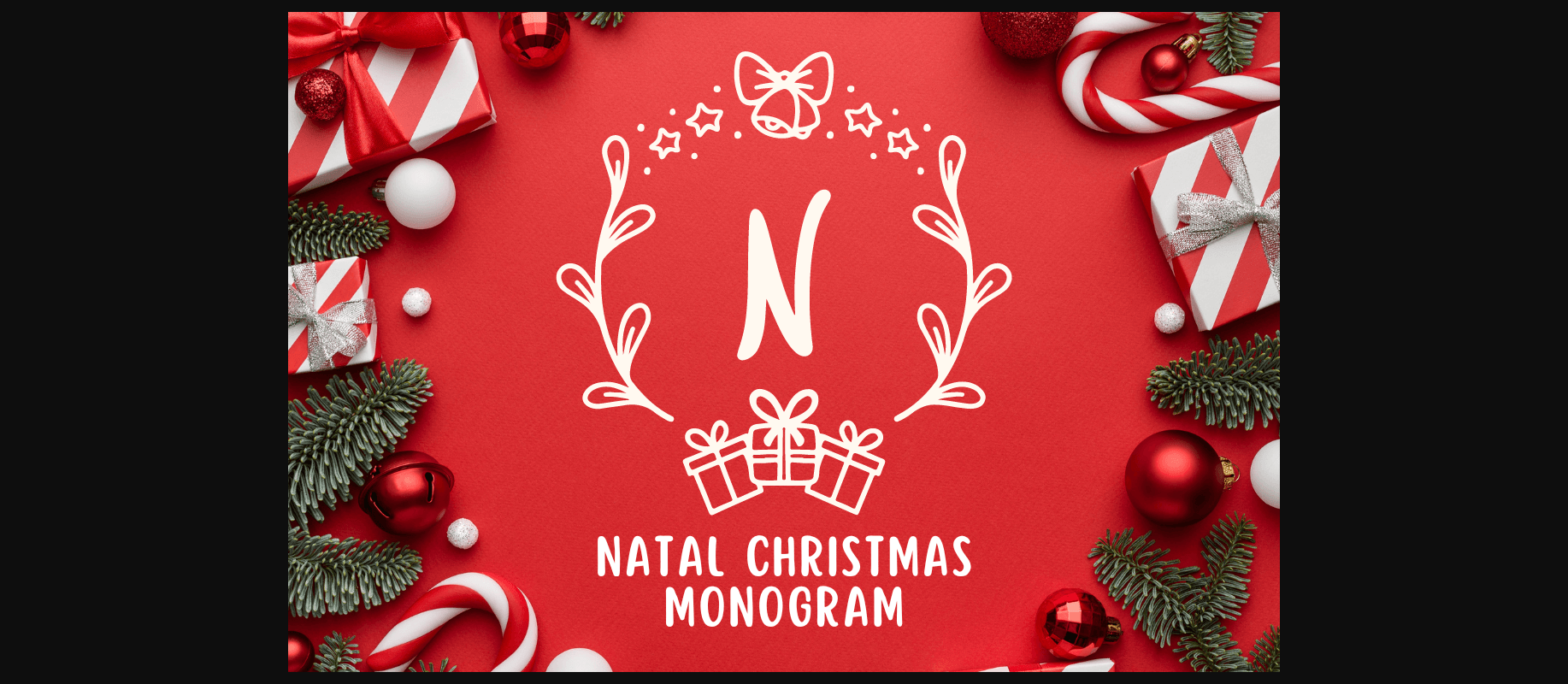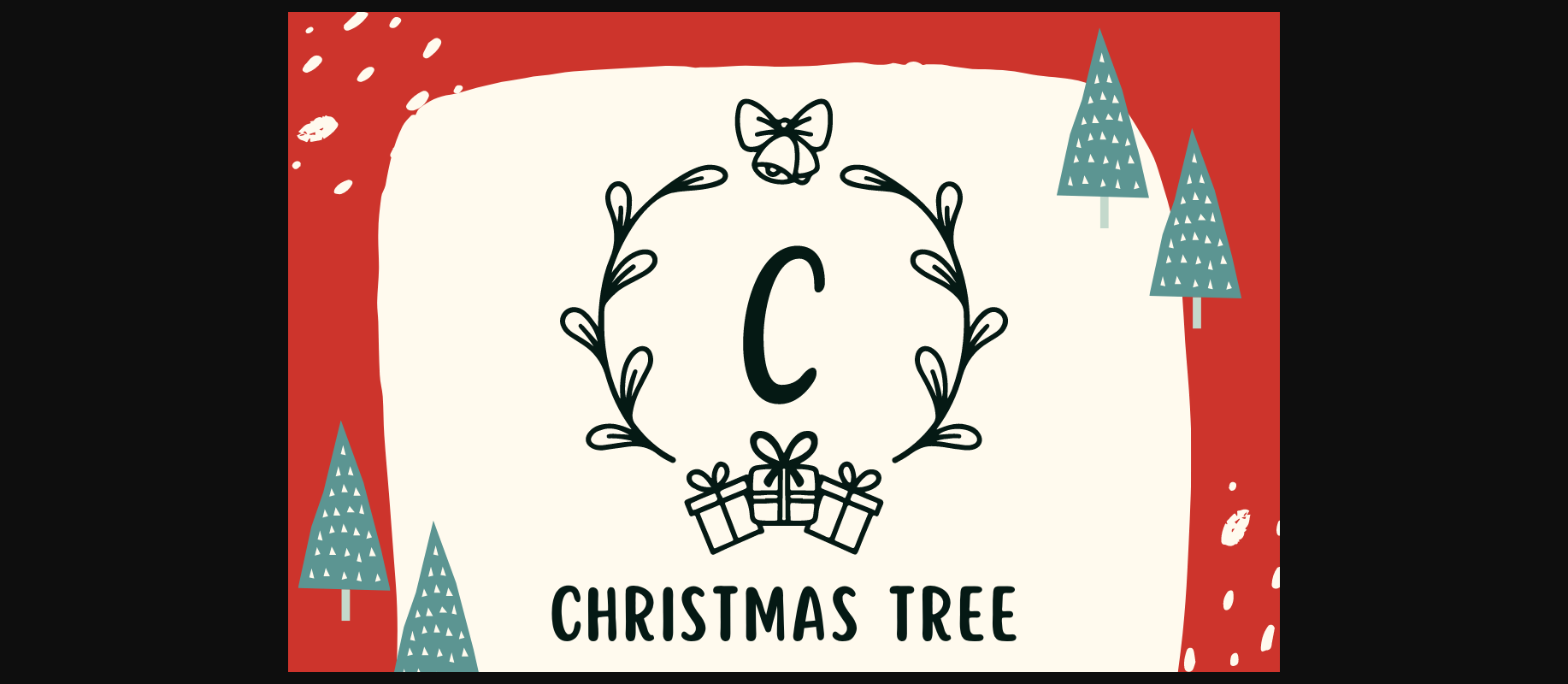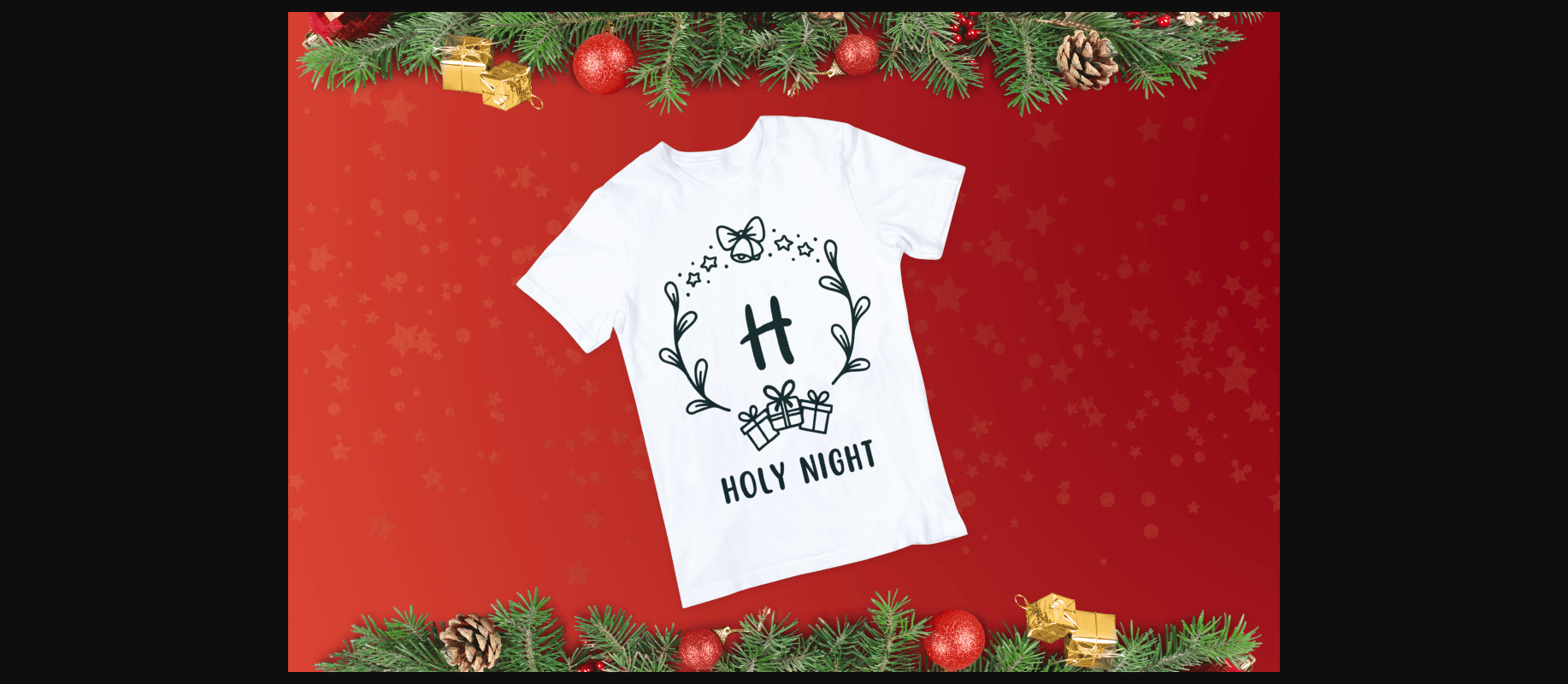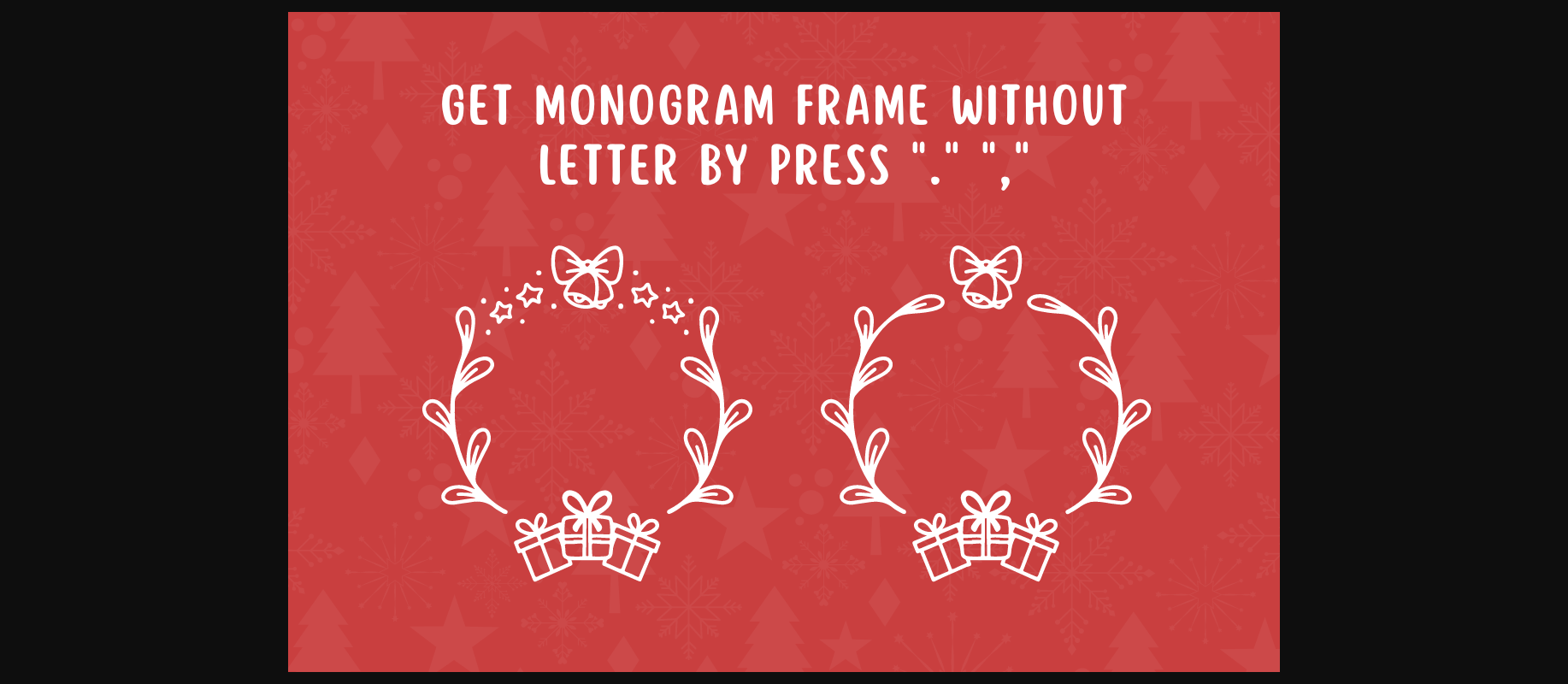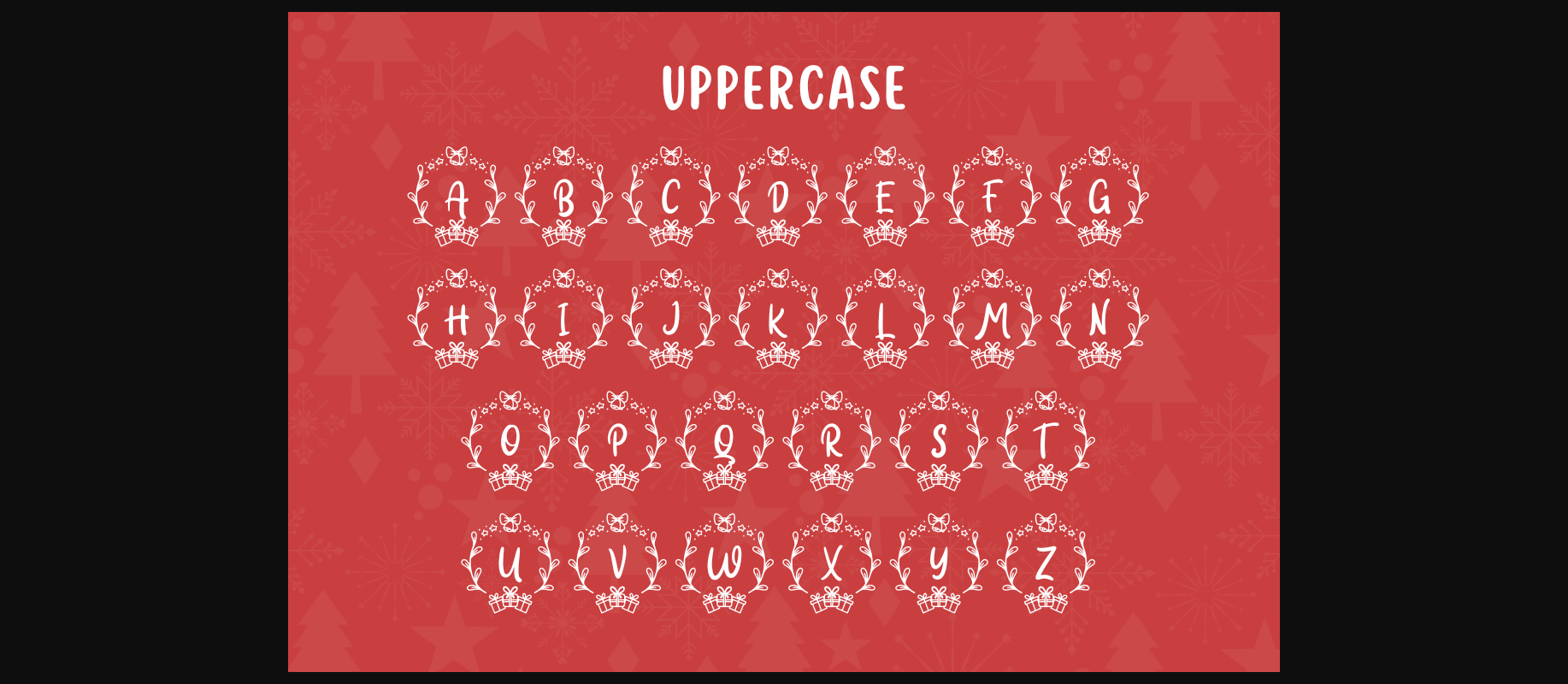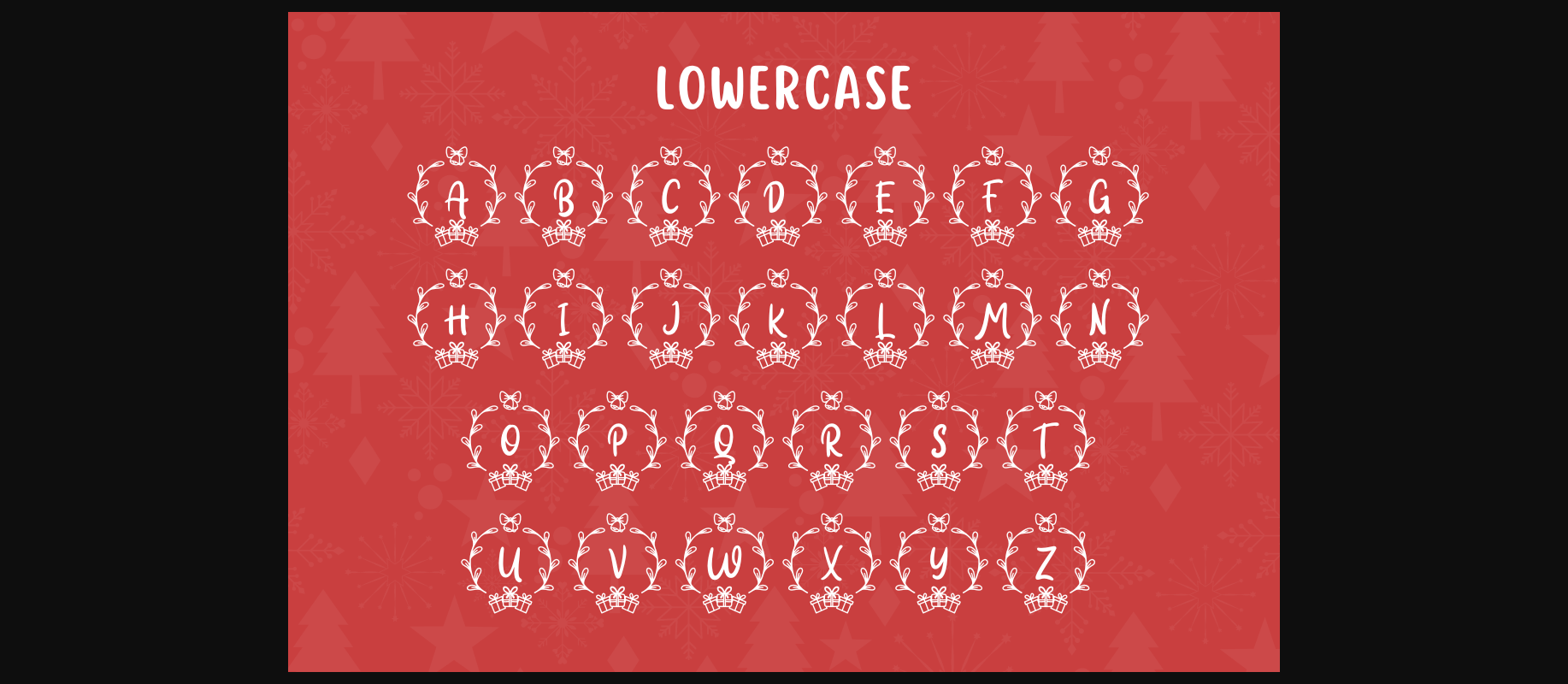
Natal Christmas Monogram Font
About Natal Christmas Monogram Font
Natal Christmas Monogram is Christmas and Winter-themed monogram font, perfect for your Christmas special occasions, business designs, logos, branding, social media posts, and wedding cards.